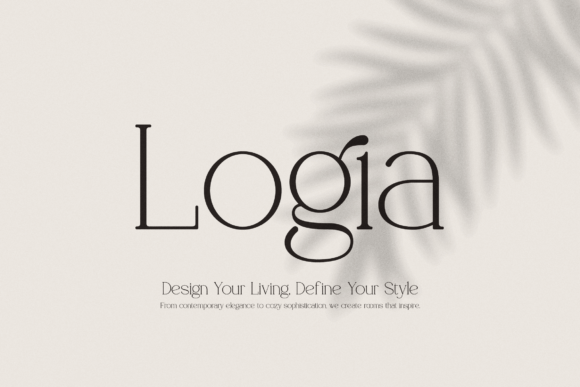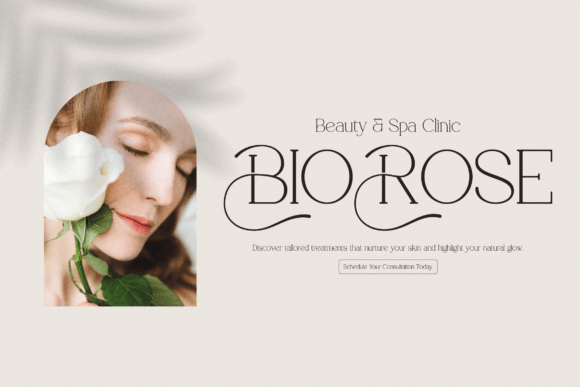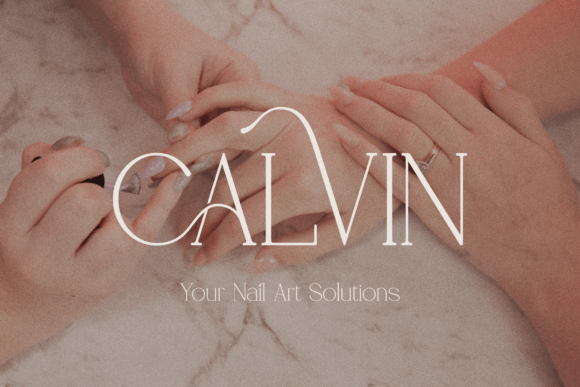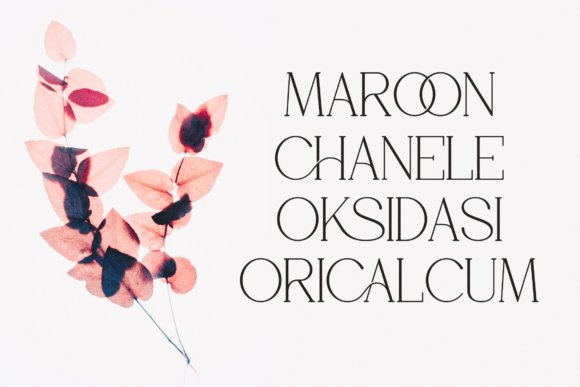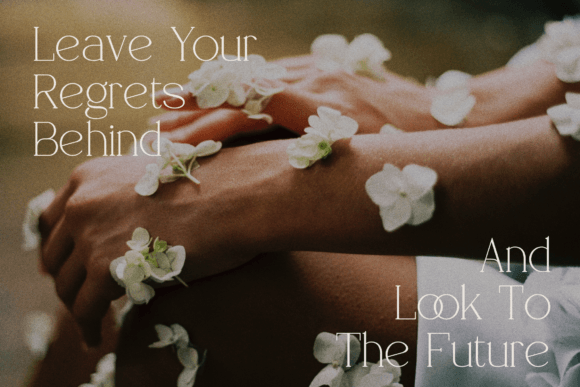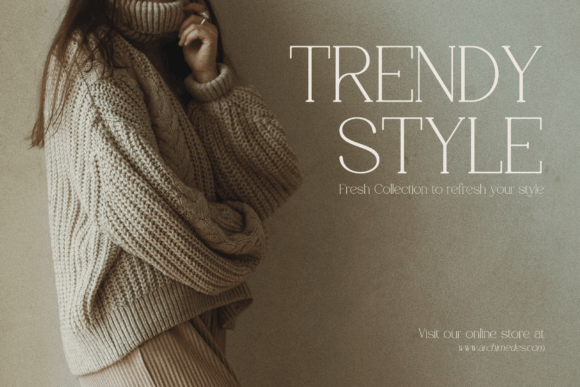
Glica Qidvers Font: Elevate Your Designs with Elegance and Sophistication
In the world of design, typography plays a crucial role in conveying the message and aesthetic of a project. For those seeking a font that exudes elegance and sophistication, Glica Qidvers is an excellent choice. This dainty and elegant serif font is perfect for a wide range of projects, from logos and branding to homeware designs, product packaging, and more.
What Makes Glica Qidvers Stand Out?
Glica Qidvers boasts a unique blend of classic and modern elements, making it a versatile font suitable for various design applications. Its serif design adds a touch of sophistication, while its elegant lines and curves bring a sense of refinement. Whether you’re working on a logo, brochure, or product packaging, Glica Qidvers is sure to elevate your design.
Ideal Projects for Glica Qidvers
This beautiful font is suitable for a wide range of projects, including:
- Logos and Branding Projects: Create a lasting impression with a logo that exudes elegance and sophistication.
- Homeware Designs: Add a touch of refinement to your homeware designs, from stationery to textiles.
- Product Packaging: Elevate your product packaging with a font that conveys luxury and quality.
- Mugs and Apparel: Create stunning designs for mugs, t-shirts, and other apparel.
- Quotes and Posters: Add a touch of elegance to your quotes and posters.
- Shopping Bags and Labels: Create eye-catching designs for shopping bags and labels.
- Book Covers and Invitation Cards: Make a lasting impression with elegant book covers and invitation cards.
- Greeting Cards and Photography: Add a touch of sophistication to your greeting cards and photography.
Why Choose Glica Qidvers?
With Glica Qidvers, you can:
- Enhance Your Brand’s Image: Convey elegance and sophistication with a font that exudes refinement.
- Stand Out from the Crowd: Create unique and eye-catching designs that set you apart from the competition.
- Increase Versatility: Use Glica Qidvers across various design applications, from print to digital.
Tips for Using Glica Qidvers Effectively
To get the most out of Glica Qidvers, consider the following tips:
- Pair with Other Fonts: Experiment with pairing Glica Qidvers with other fonts to create visually appealing combinations.
- Adjust Font Sizes: Play with font sizes to create visual hierarchy and emphasis.
- Experiment with Colors: Try out different colors to find the perfect match for your design.
Glica Qidvers is a stunning serif font that can elevate your designs to new heights. With its elegant lines, classic curves, and versatile design, it’s perfect for a wide range of projects. Whether you’re a designer, crafter, or DIY enthusiast, Glica Qidvers is an excellent choice for those seeking to add a touch of sophistication and elegance to their work.